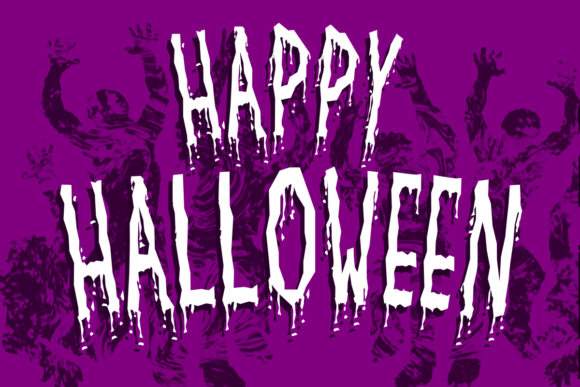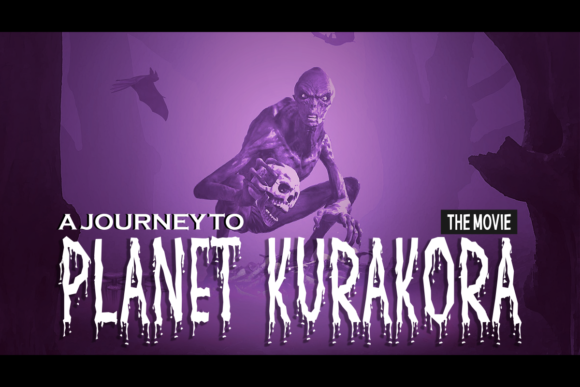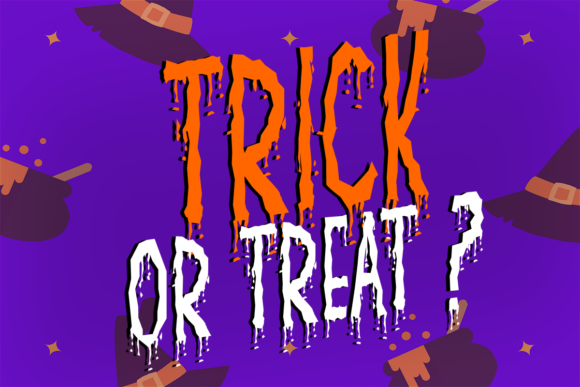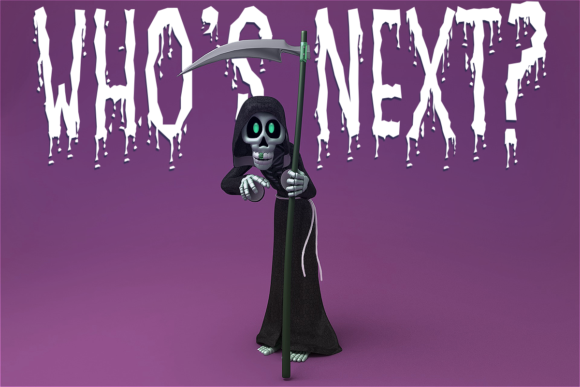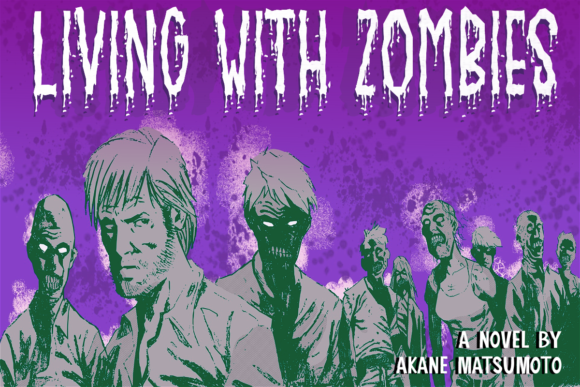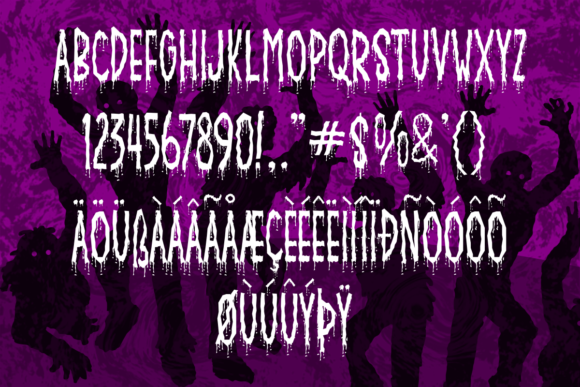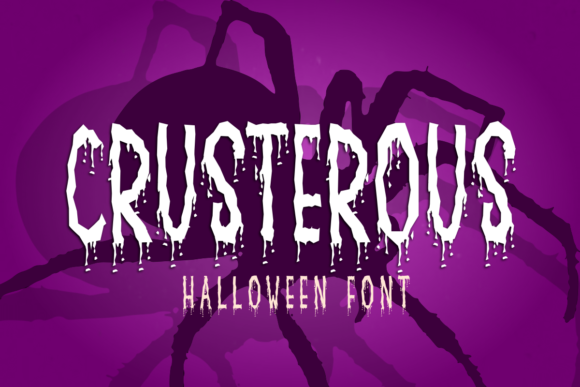
Introducing Crusterous Font: The Ultimate Display Font to Elevate Your Designs
Are you tired of using the same old fonts in your designs? Look no further! Crusterous Font is a game-changing display font that is sure to add a unique touch to your creations. With its chunky, lettered design, Crusterous Font is the perfect way to make your designs come alive.
What is Crusterous Font?
Crusterous Font is a distinctive and eye-catching display font that is designed to grab attention. Its chunky, textured letters are perfect for creating bold and striking designs that are sure to stand out. Whether you’re a designer, crafter, or DIY enthusiast, Crusterous Font is a versatile and exciting addition to your font collection.
Key Features of Crusterous Font
- Unique and distinctive design: Crusterous Font features a one-of-a-kind design that is sure to set your designs apart from the crowd.
- Chunky and textured letters: The font’s chunky, textured letters add a tactile and organic feel to your designs.
- Perfect for display text: Crusterous Font is optimized for display text, making it ideal for headlines, titles, and other prominent text elements.
- Easy to read: Despite its bold and chunky design, Crusterous Font is surprisingly easy to read, making it perfect for designs that require a clear and concise message.
How to Use Crusterous Font in Your Designs
Crusterous Font is incredibly versatile and can be used in a wide range of design applications. Here are a few ideas to get you started:
- Headlines and titles: Use Crusterous Font to create bold and eye-catching headlines and titles that grab attention.
- Signage and posters: Crusterous Font is perfect for creating eye-catching signage and posters that stand out.
- Branding and logos: Add a unique touch to your brand’s logo or packaging with Crusterous Font.
- DIY projects: Crusterous Font is also perfect for crafters and DIY enthusiasts who want to add a personal touch to their projects.
Tips for Getting the Most Out of Crusterous Font
Here are a few tips for getting the most out of Crusterous Font:
- Experiment with different colors: Crusterous Font looks great in a wide range of colors, so don’t be afraid to experiment and find the perfect hue for your design.
- Mix and match with other fonts: Crusterous Font pairs well with a wide range of fonts, so try mixing and matching it with other fonts to create a unique look.
- Use it sparingly: While Crusterous Font is bold and eye-catching, it can be overwhelming if used too much. Use it sparingly to create a focal point in your design.
| Font Name | Crusterous Font |
| Author | Deedeetype |
Crusterous Font is a unique and exciting display font that is sure to elevate your designs. With its chunky, textured letters and bold design, it’s the perfect way to add a touch of personality to your creations. Whether you’re a designer, crafter, or DIY enthusiast, Crusterous Font is a versatile and inspiring addition to your font collection.